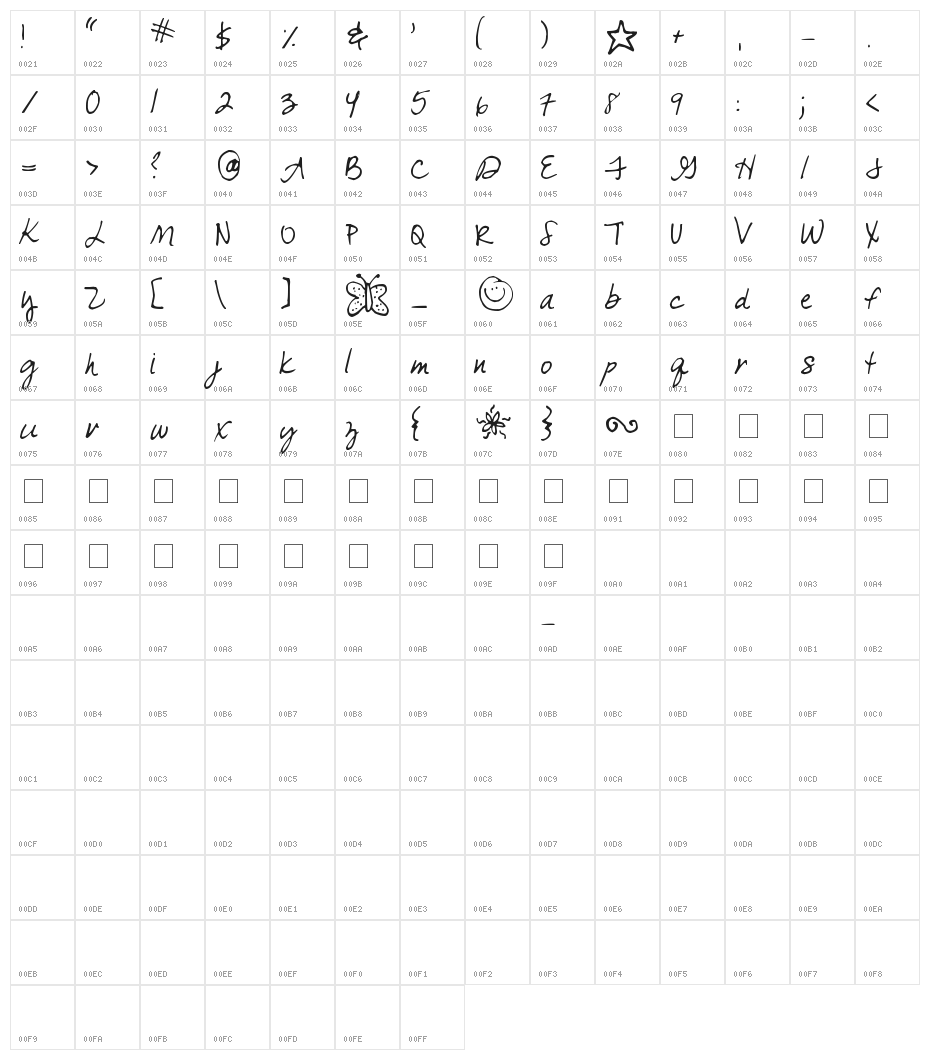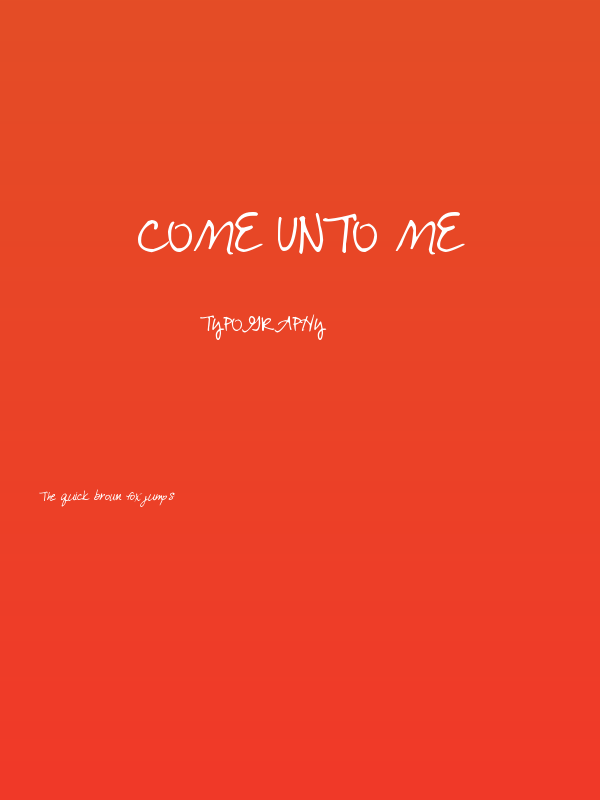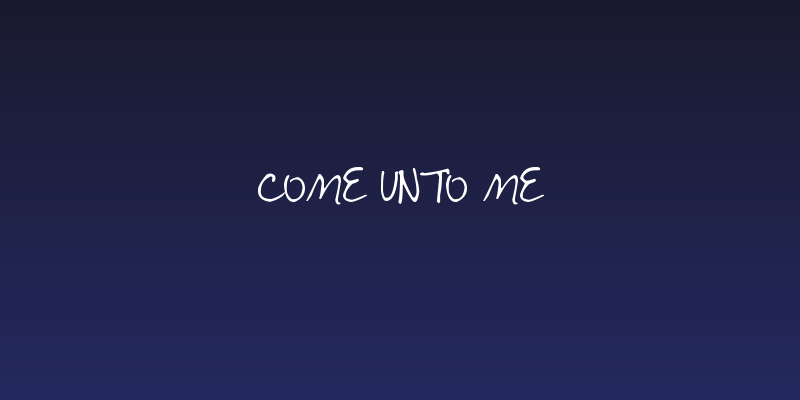
Come unto Me Font
Come unto Me Description
This font features a casual, handwritten style with a playful and informal appearance. The letters are slightly slanted, giving it a dynamic and lively feel. The strokes are smooth and fluid, with a consistent thickness throughout, which adds to its legibility. The uppercase and lowercase letters maintain a cohesive look, while the numbers and special characters are designed to match the overall aesthetic. This font is versatile and can be used in various creative projects where a personal touch is desired.
| Use Case | Logos, Invitations, Personal notes |
| Proposed Projects | Ideal for greeting cards, invitations, personal notes, and creative branding projects. |